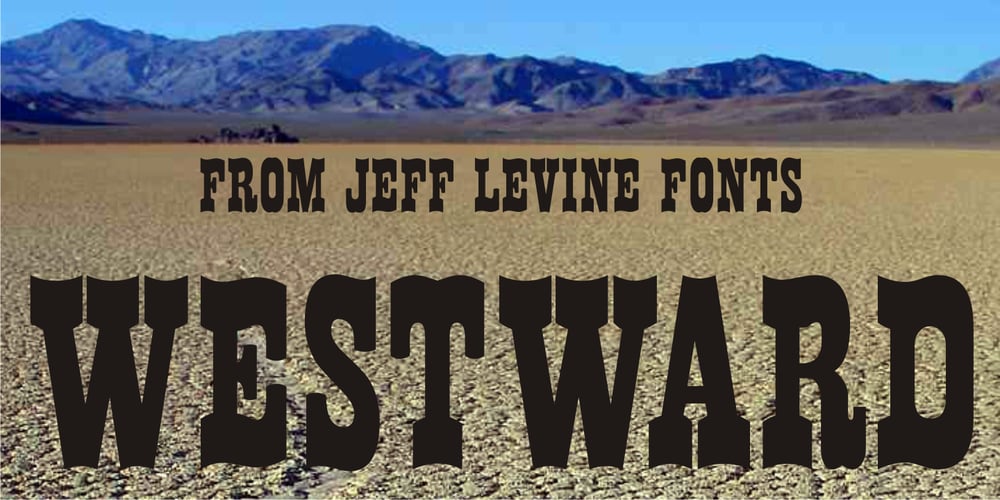
Westward JNL Font Family was designed by Jeff Levine and published by Jeff Levine. Westward JNL contains 1 styles and family package options. Westward JNL is an interesting variation on the popular wood type known as a French Clarendon style, or more popularly known as Western or Circus lettering. Based on an A-Z set of wood type pieces, this novelty approach of curved and wavy horizontal strokes is sure to grab attention when applied to headlines.